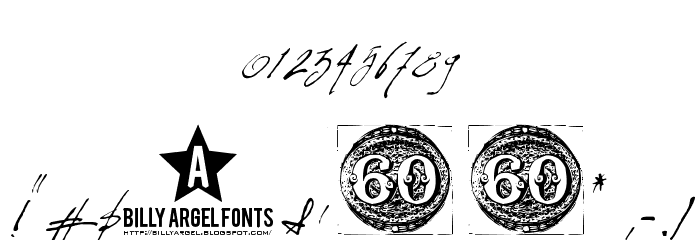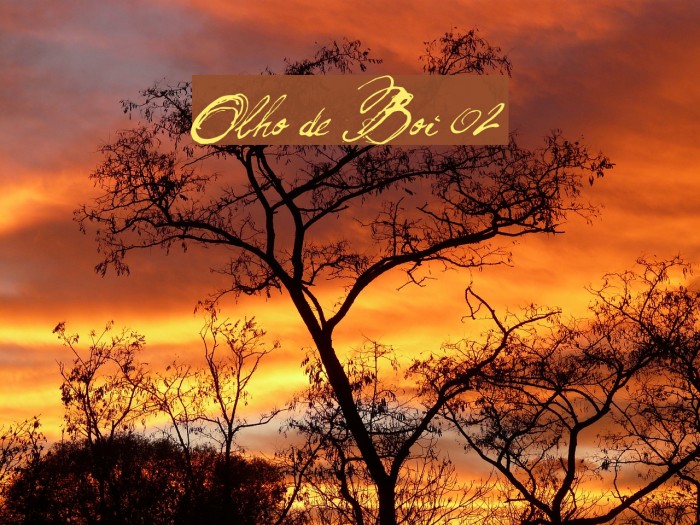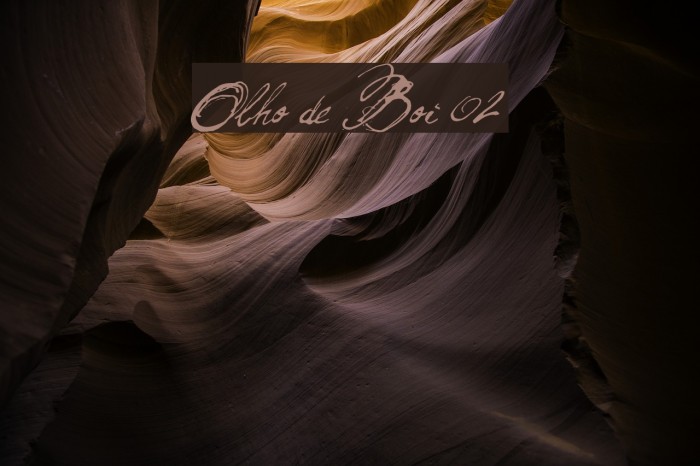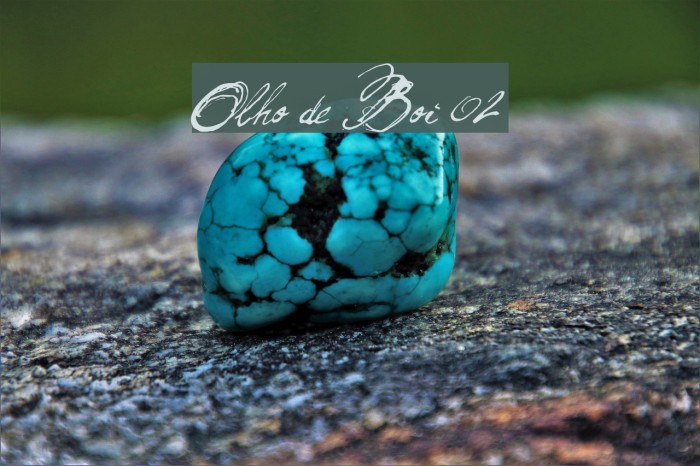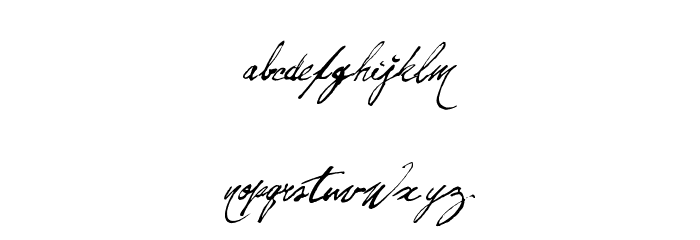
Olho de Boi 02 Font
Olho de Boi 02 Description
This font features an elaborate and artistic script style, characterized by its flowing, cursive letters that mimic the fluidity of handwriting. The uppercase letters are particularly ornate, with intricate loops and flourishes that give a sense of elegance and sophistication. The lowercase letters maintain a consistent style, though they are slightly less embellished, allowing for readability while still retaining a decorative flair. The numbers and special characters follow the same stylistic cues, ensuring a cohesive look across all glyphs. This font's design is reminiscent of calligraphy, making it suitable for projects that require a touch of class and artistry.
| Use Case | Logos, Invitations, Artistic projects |
| Proposed Projects | Ideal for wedding invitations, elegant branding, certificates, and artistic posters. |